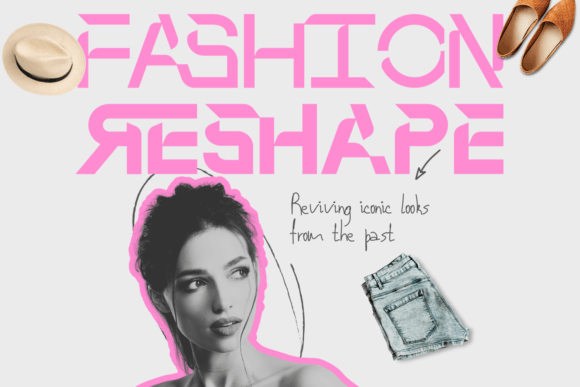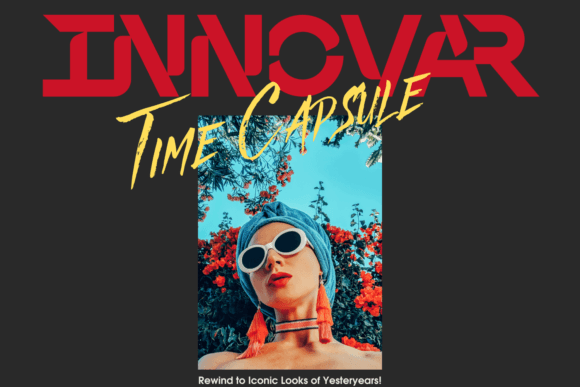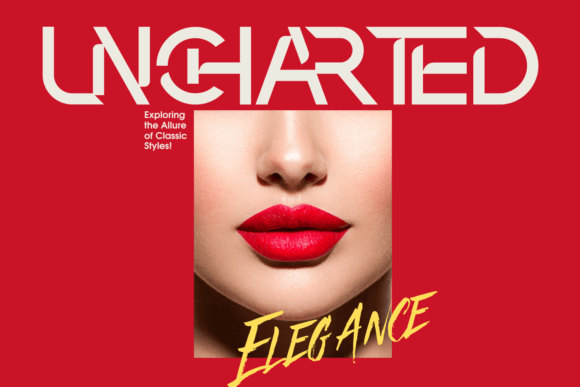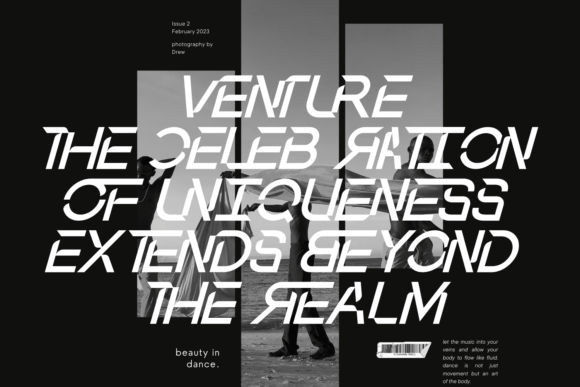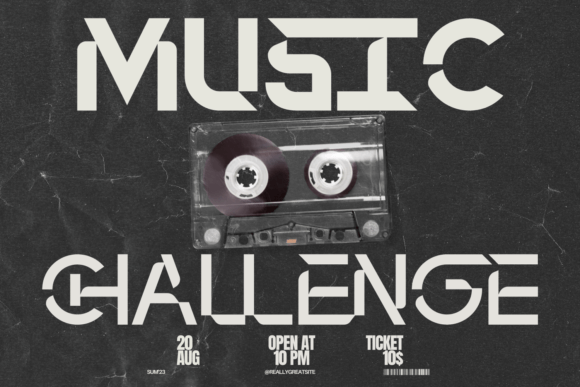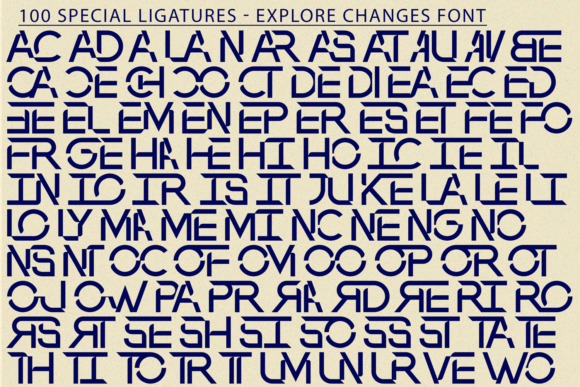
Discover the Versatility of Explore Changes Font
In the realm of typography, the right font can elevate a design project from ordinary to extraordinary. For designers and crafters seeking a stylish and modern typeface, Explore Changes font is an excellent choice. This expanded sans-serif typeface boasts unique ligatures and alternate characters, making it perfect for a wide range of design applications, including branding, packaging, advertising, and more.
What Makes Explore Changes Font Stand Out?
Explore Changes font is built with OpenType features, which allow for a high degree of versatility and customization. One of its standout features is the inclusion of 100 ligatures, providing designers with a wealth of options for creating visually appealing and cohesive text. In addition to ligatures, the font also includes alternate characters, numbers, punctuation, and support for multiple languages.
Key Features of Explore Changes Font
- Unique Ligatures: With 100 ligatures at your disposal, you can add a touch of elegance and sophistication to your designs.
- Alternate Characters: The font includes a range of alternate characters, allowing you to experiment with different styles and variations.
- OpenType Features: Built with OpenType features, Explore Changes font offers a high degree of flexibility and customization.
- Language Support: The font supports multiple languages, making it an excellent choice for global design projects.
- Expanded Sans-Serif Typeface: Explore Changes font features a modern and stylish sans-serif design, perfect for a wide range of applications.
Applications for Explore Changes Font
The versatility of Explore Changes font makes it suitable for various design projects, including:
- Branding: Create a lasting impression with a custom logo or wordmark that showcases your brand’s personality.
- Packaging: Add a touch of sophistication to product packaging with Explore Changes font.
- Advertising: Make your advertisements stand out with a modern and stylish typeface.
- Digital Design: Use Explore Changes font in digital design projects, such as websites, social media graphics, and more.
Tips for Using Explore Changes Font
To get the most out of Explore Changes font, consider the following tips:
- Experiment with Ligatures: Try out different ligatures to add visual interest to your designs.
- Mix and Match: Combine Explore Changes font with other typefaces to create a unique and cohesive look.
- Play with Size and Color: Experiment with different font sizes and colors to add depth and dimension to your designs.
Explore Changes font is a powerful tool for designers and crafters seeking a stylish and modern typeface. With its unique ligatures, alternate characters, and OpenType features, this font is perfect for a wide range of design applications. Whether you’re working on a branding project, packaging design, or advertising campaign, Explore Changes font is sure to elevate your designs to the next level.
Get Ready to Explore the Possibilities